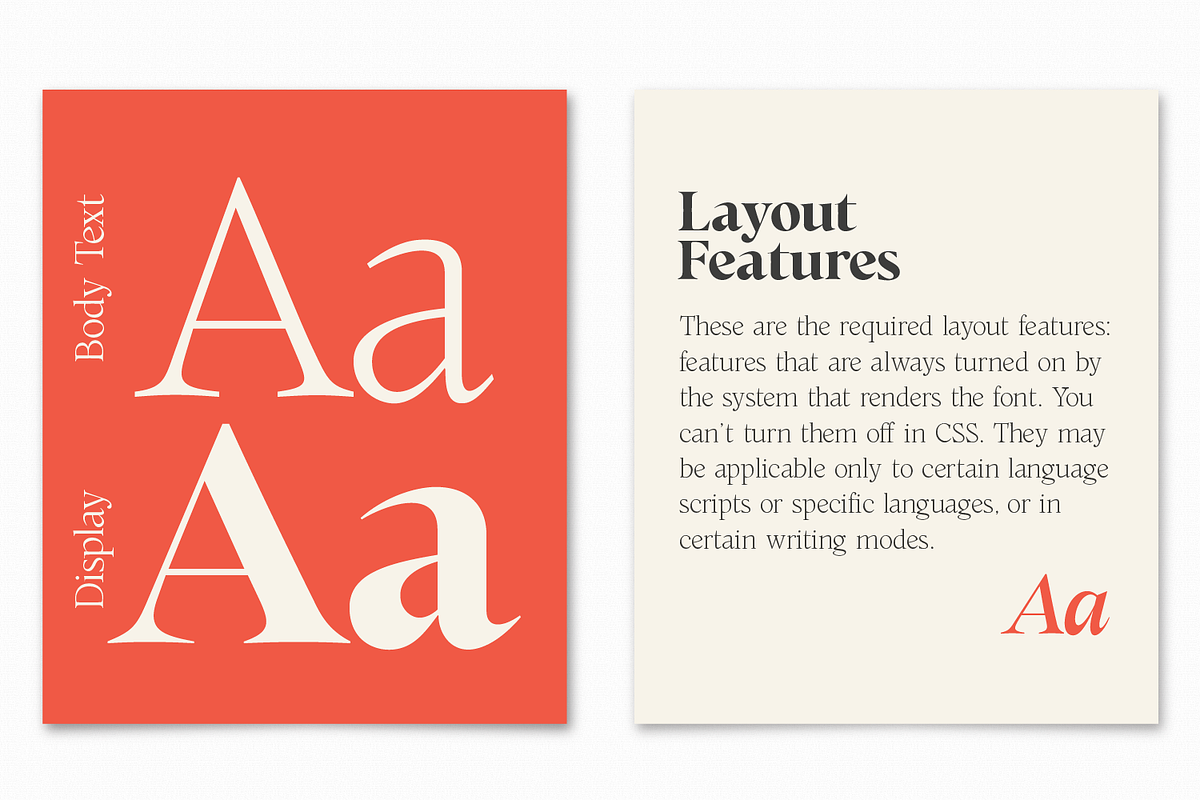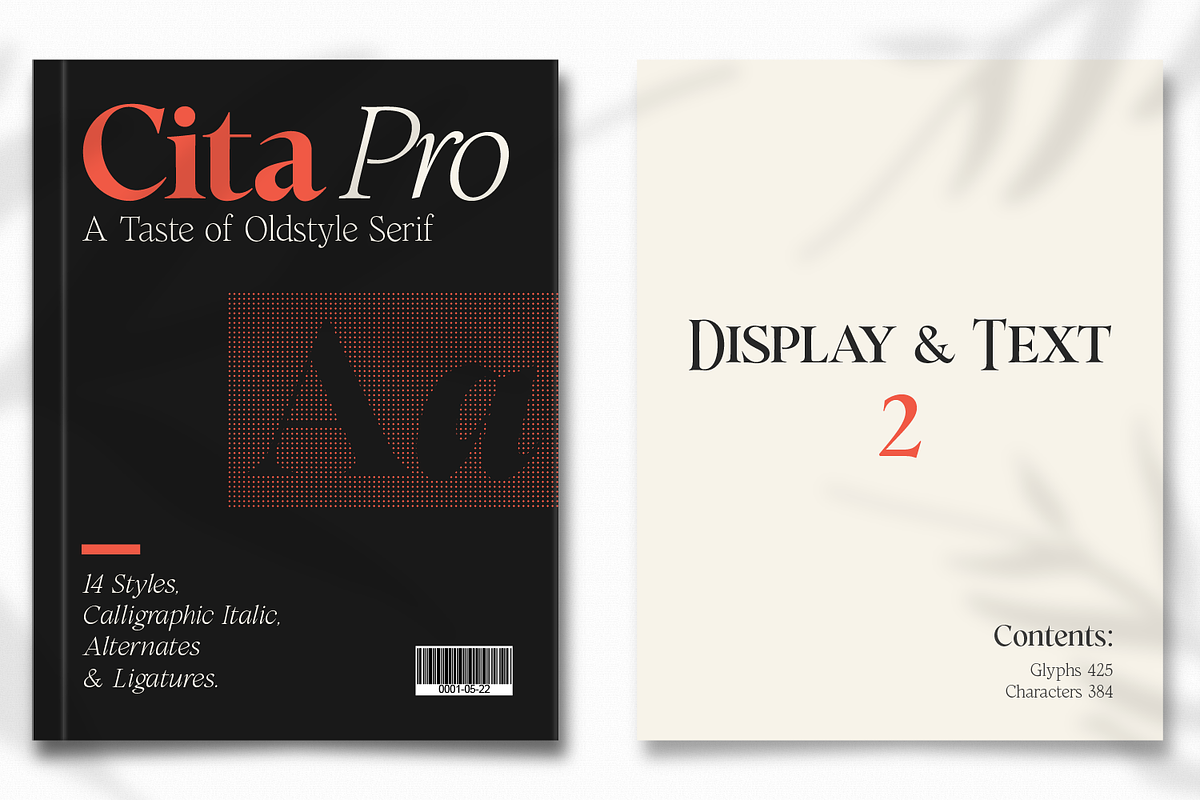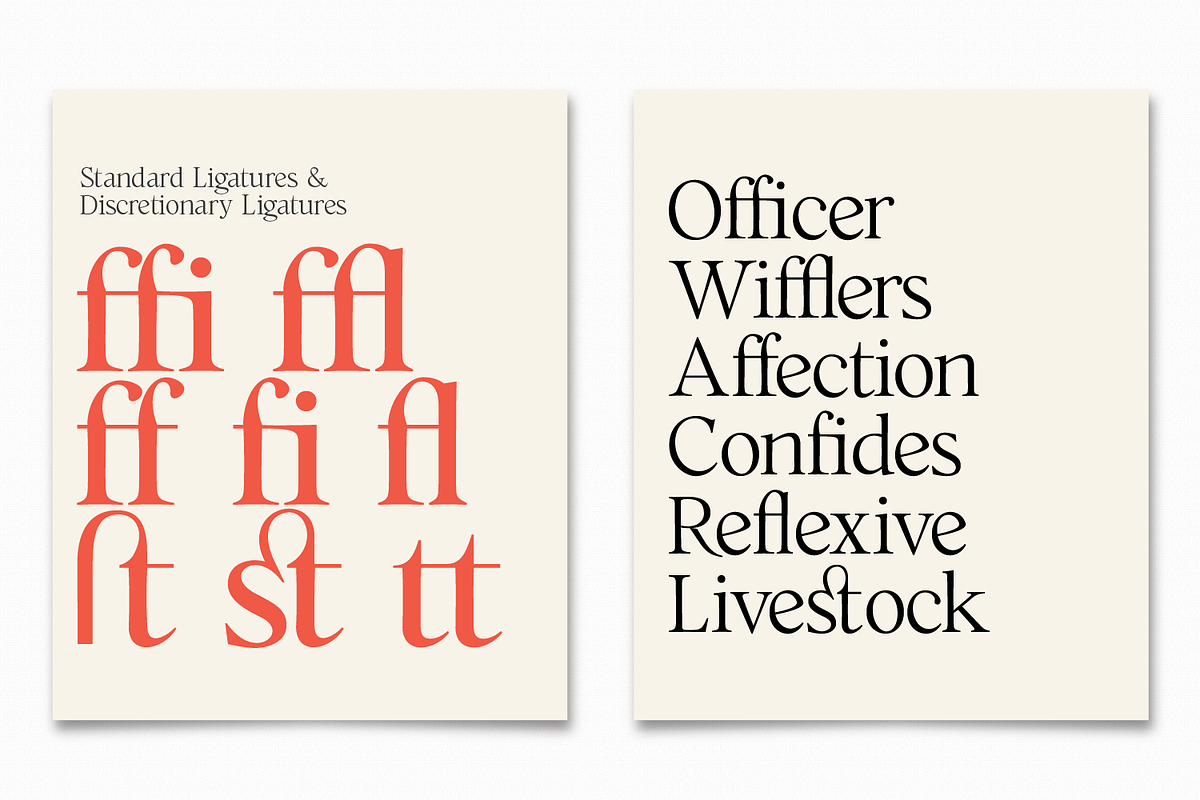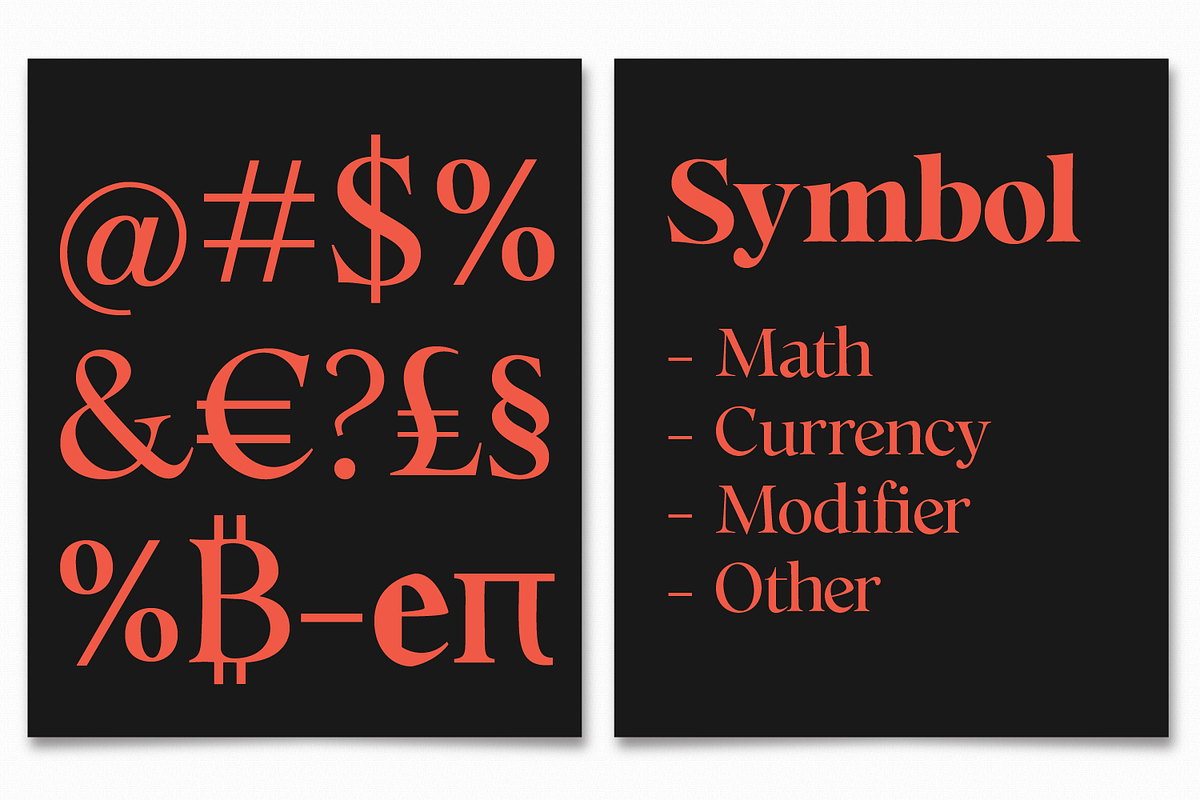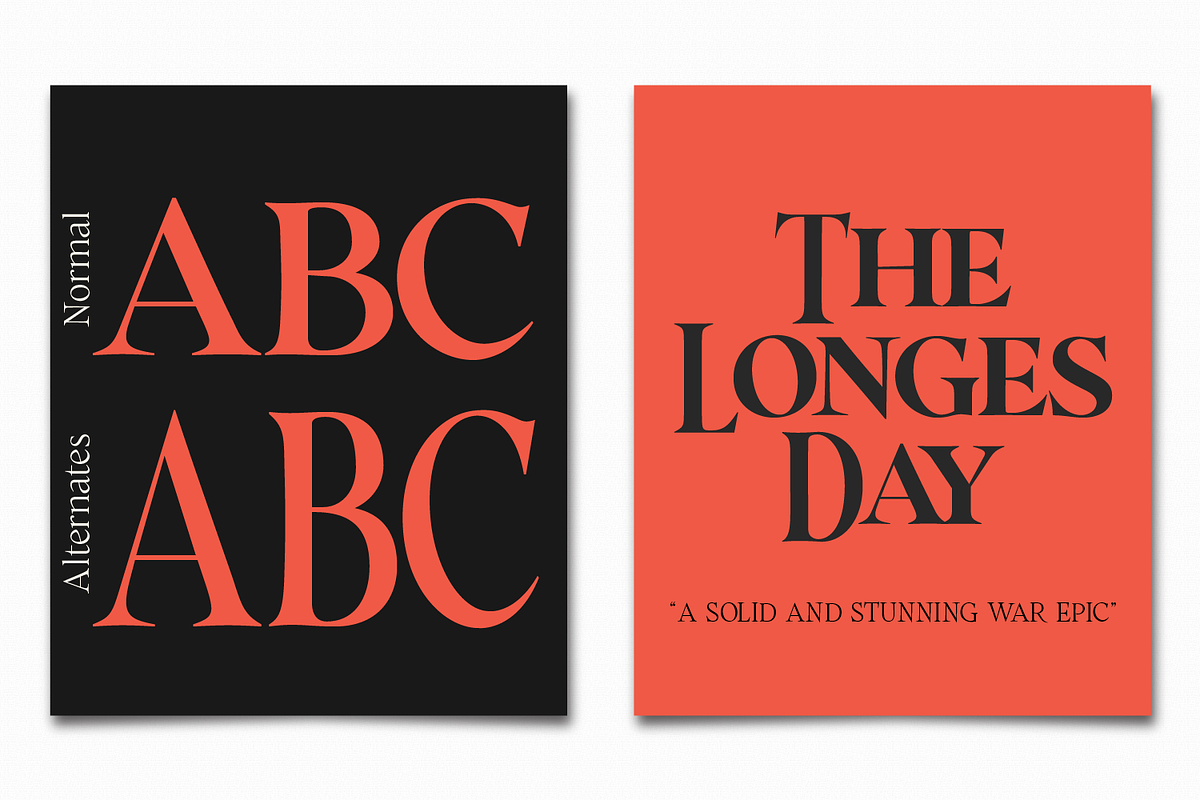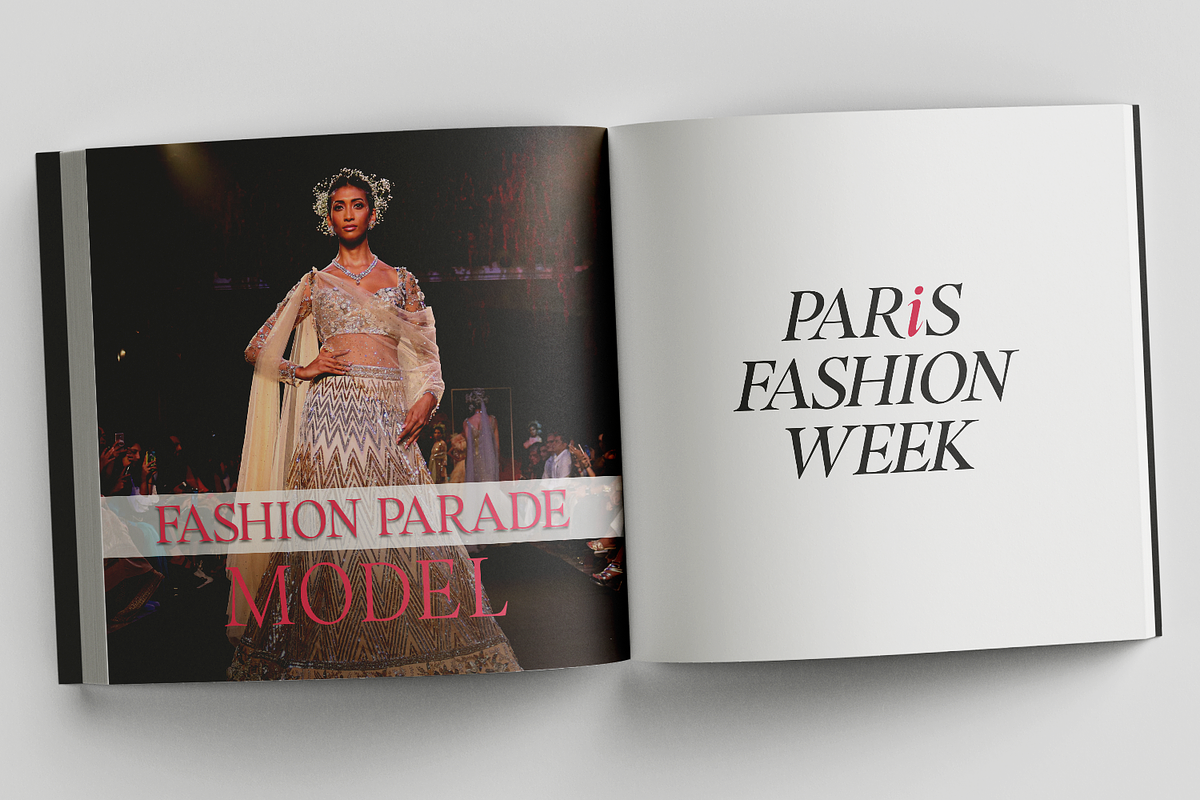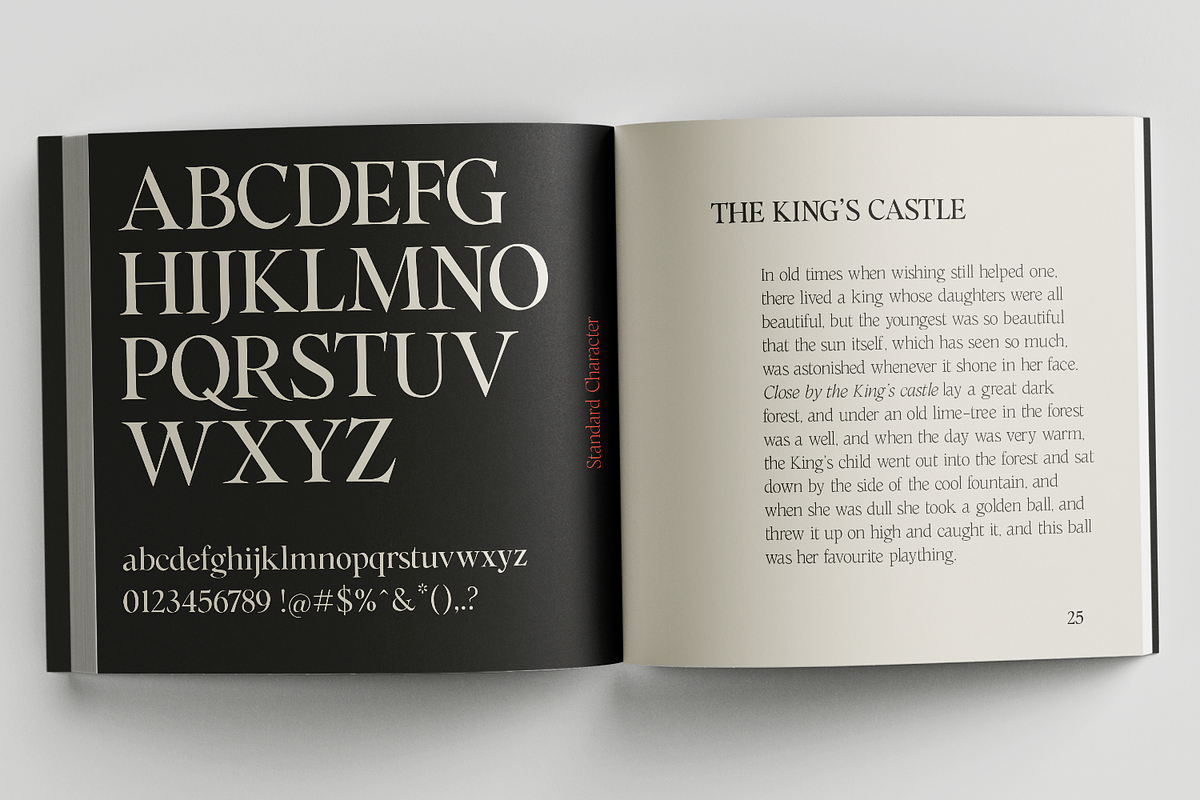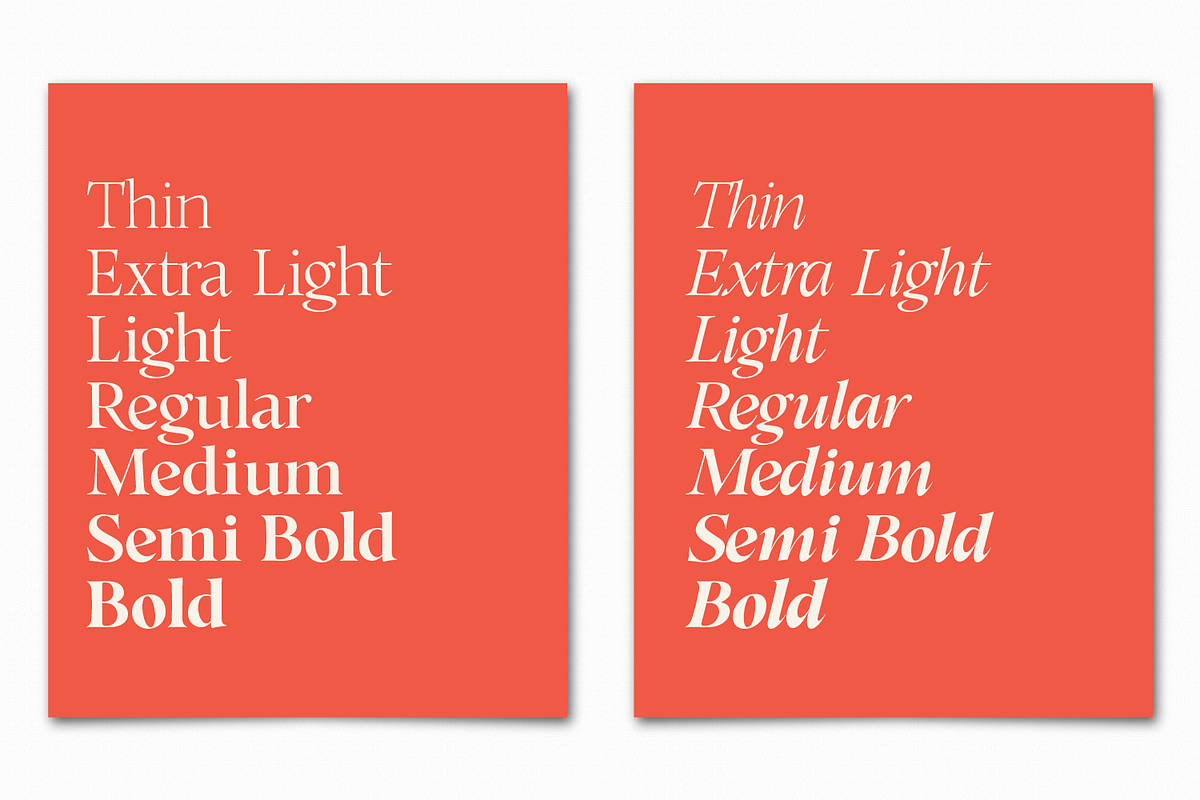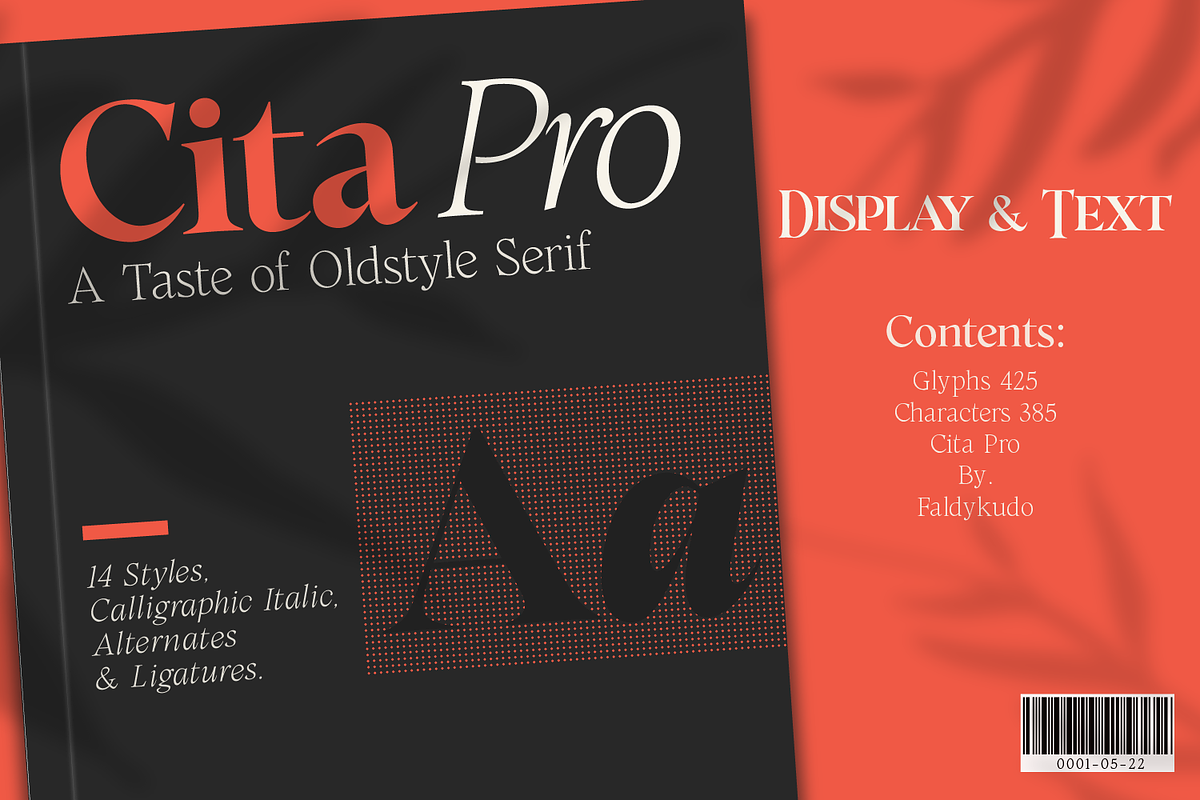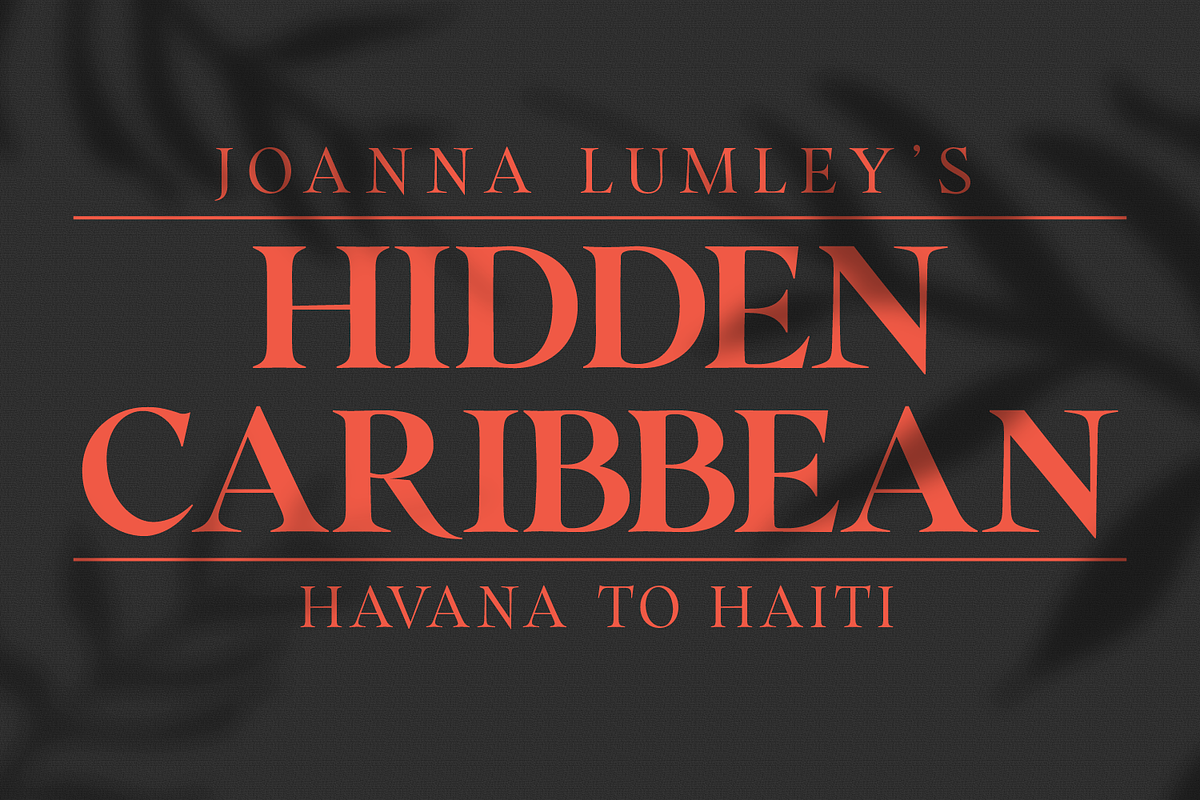
Cita Pro Serif Family
Cita Pro is a serif typeface that exudes an old-style charm. It possesses a captivating and timeless aesthetic, making it suitable for a wide range of design scenarios. Whether used in display or body text, Cita Pro offers excellent readability.
With 14 styles and 7 weights, ranging from Thin to Bold, Cita Pro provides ample versatility. It also includes matching calligraphic italics.
Furthermore, Cita Pro boasts special alternate characters for uppercase letters from A to Z, enabling you to achieve a distinct appearance in your display designs.